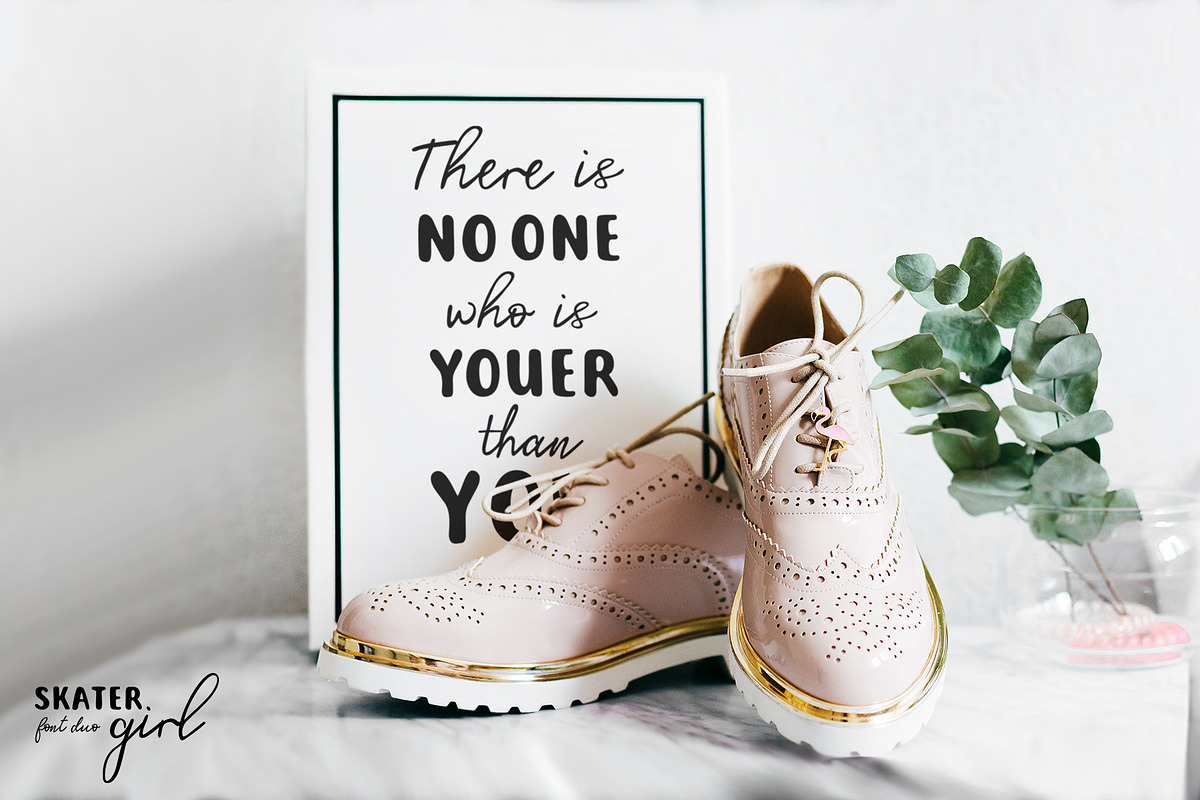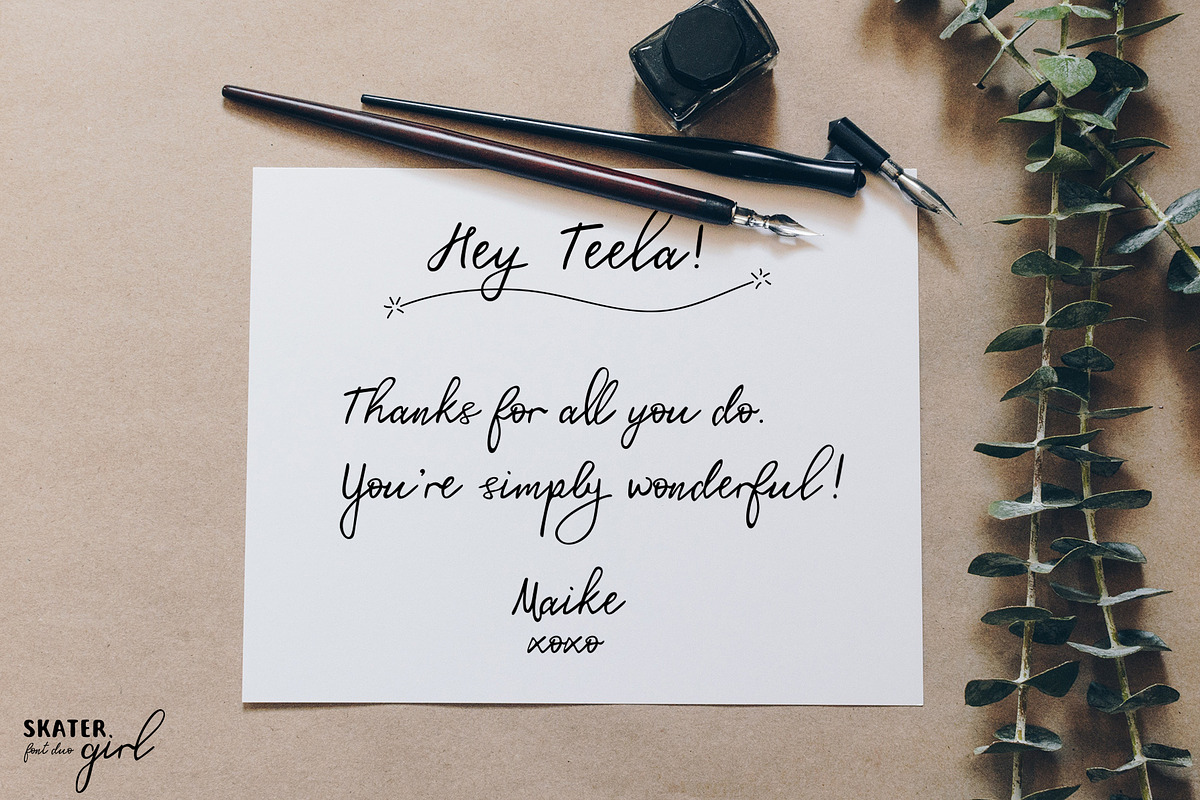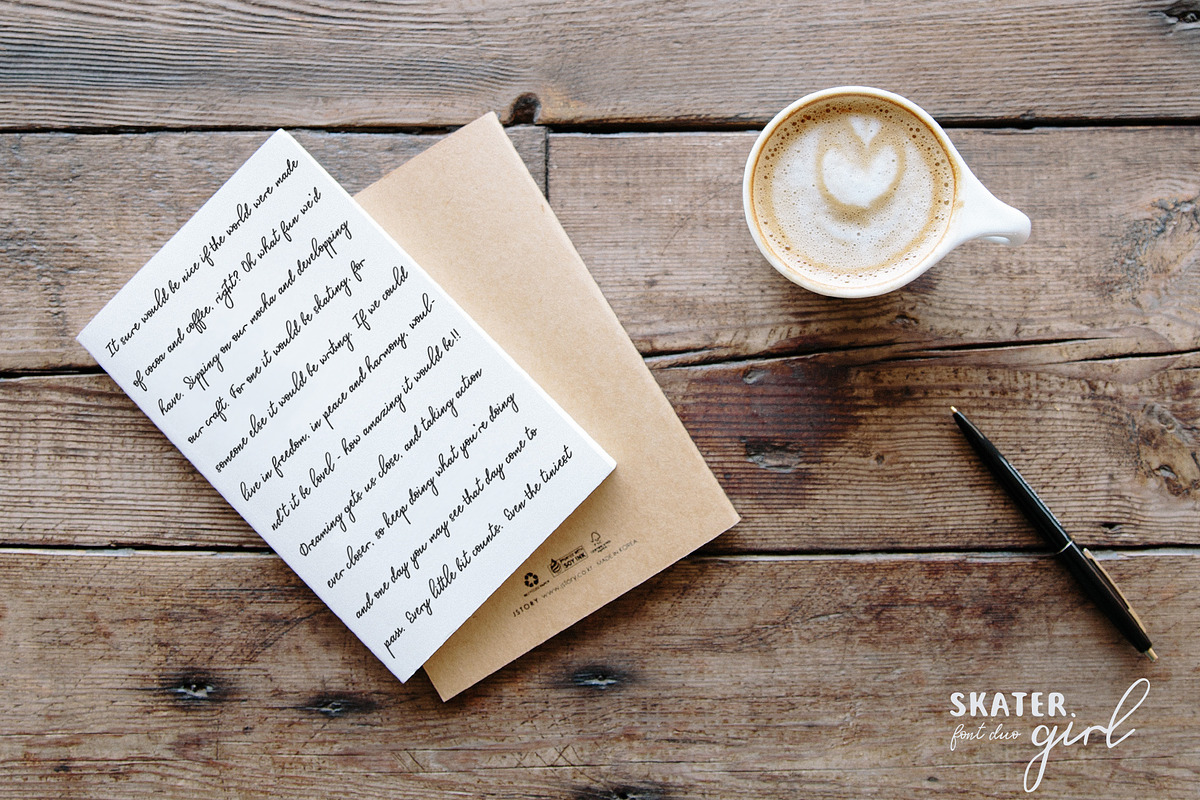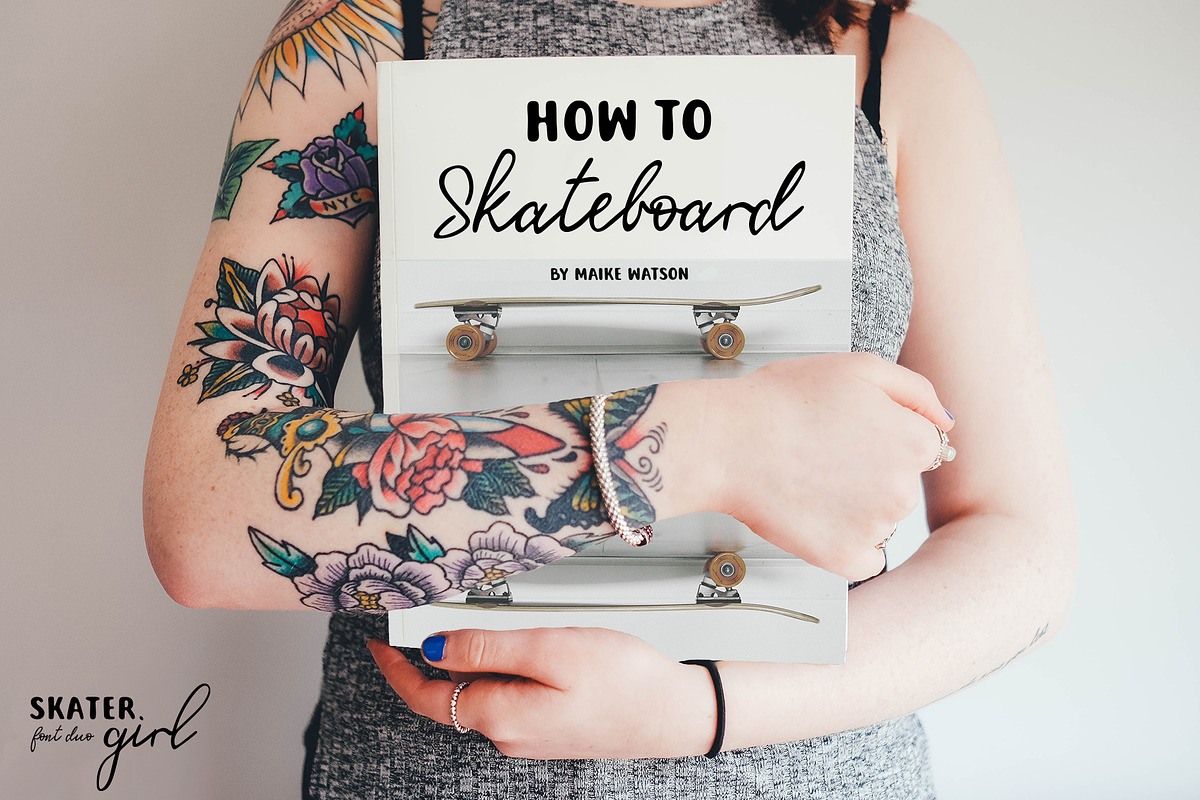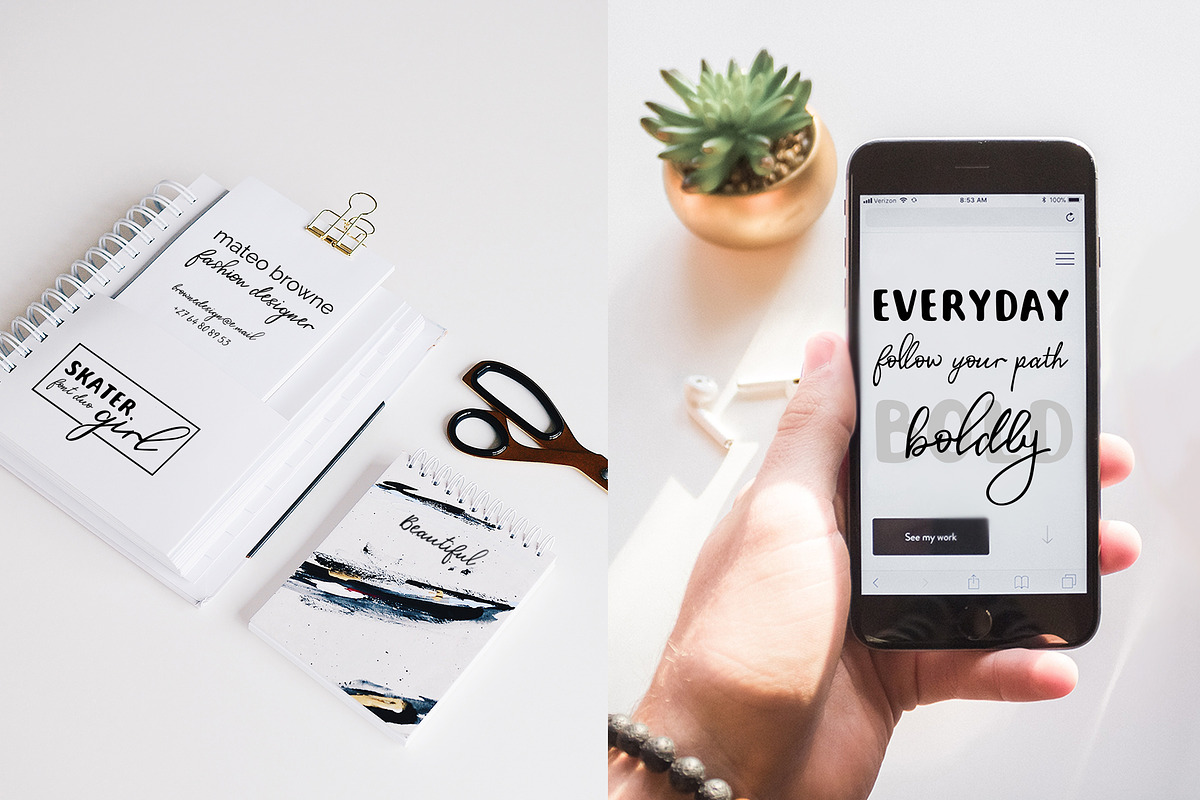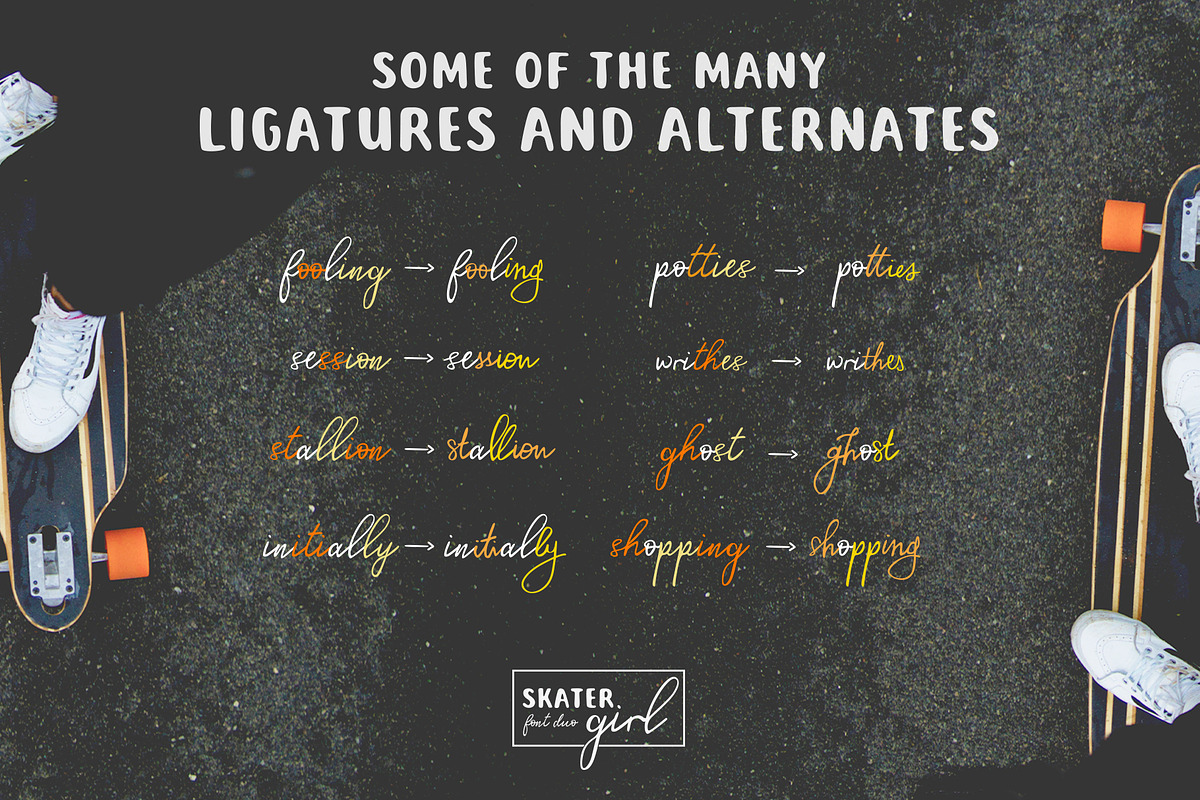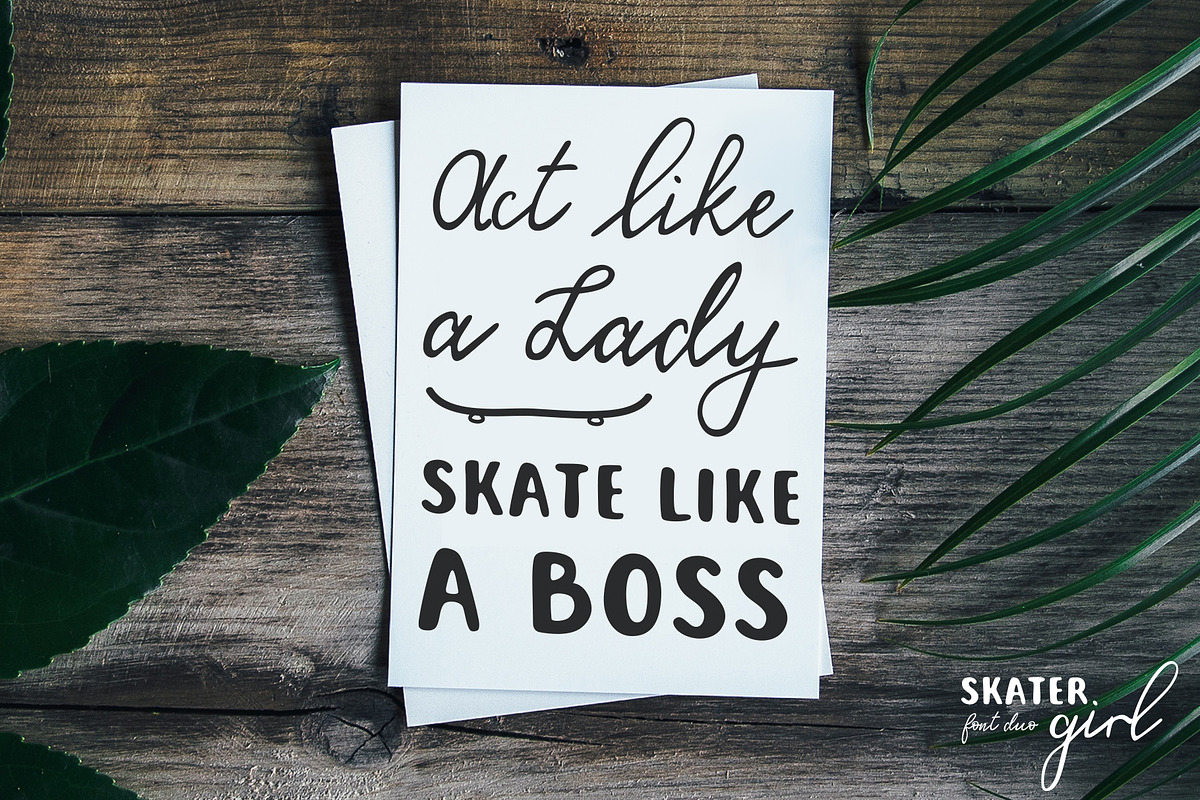
Skater Girl Font Duo
✨⚡️INTRODUCING SKATER GIRL - A SASSY, HANDWRITTEN FONT DUO⚡️✨
Skater girl is a font duo containing one skinny, full cursive type font paired with a bold, all caps font. Due to its realistic, exaggerated handwritten style and personal charm, Skater girl is unique addition to the wonderful world of fonts. Skater Girl works particularly well for poster design, (online or print), online magazines, personal branding projects and product packaging.
Skater girl font duo contains two fonts:
✨ A full, multilingual font with 229 glyphs of which 30 are ligatures and alternates ✨
✨ A bold, all caps, multilingual, complementary font. ✨
⚡️LIGATURES: sh st es ies ing ion ly gh iti ll oo pp ss th tt
⚡️ALTERNATES: g p y l r s t u b d p A L R S
Does this Font support other languages?YES! Skater Girl’s multilingual support includes accented and diacritically marked characters for international users (Western European, Central European and South Eastern European).